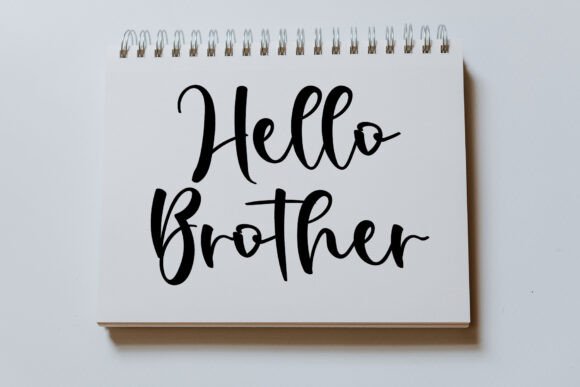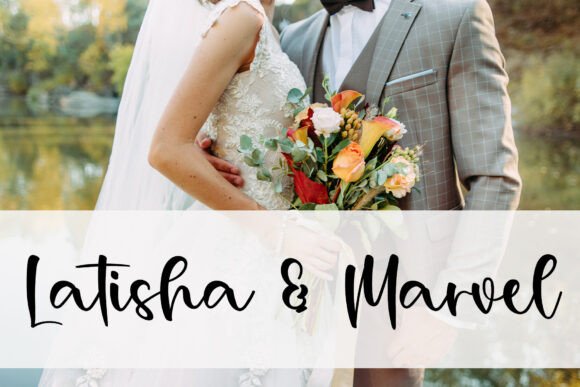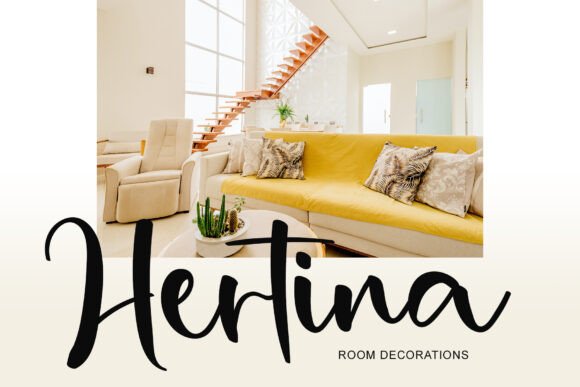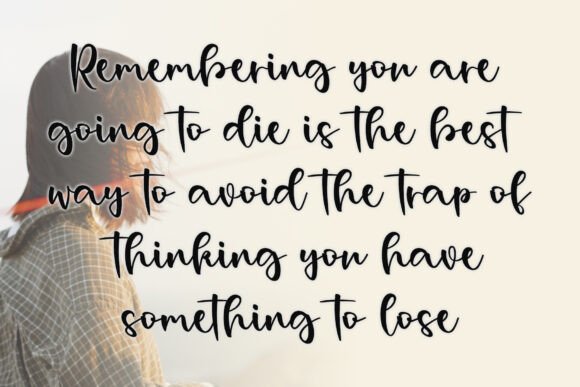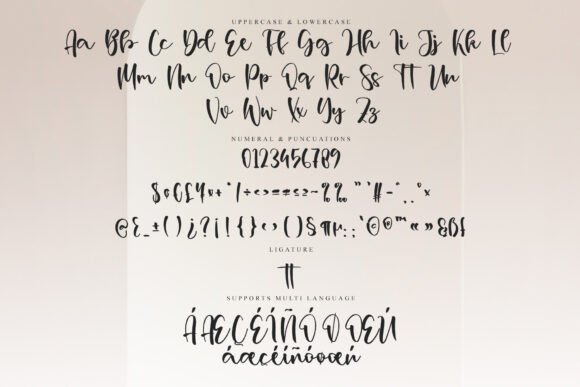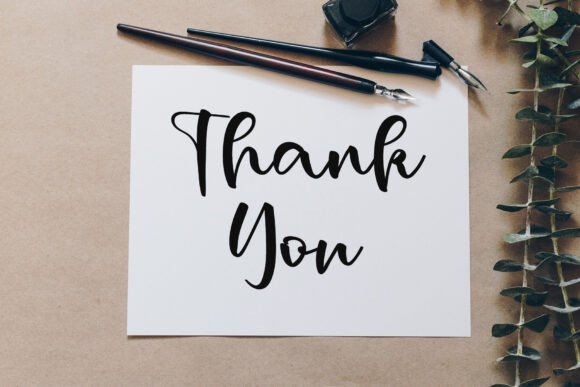
Introduction to Lovely Script Font
Do you remember the thrill of designing a beautiful invitation for your best friend’s wedding, or the satisfaction of creating a stunning logo for your own business? For many of us, the joy of design lies in the small, special moments where we get to make something truly unique and personal. And that’s exactly where the Lovely Script Font comes in – a stylish handwritten font that adds a touch of elegance and sophistication to any creative project.
As a valuable design resource, the Lovely Script Font offers a high-quality, transparent background that allows your text to shine. With its impeccable form and contemporary atmosphere, this font is perfect for designers who want to add a touch of classic charm to their work. And the best part? It’s available for free download, making it an accessible and versatile tool for any creative project.
Whether you’re a seasoned pro or just starting out, the Lovely Script Font is sure to become a trusted companion in your design journey. So why settle for ordinary when you can add a little extra loveliness to your work?
Key Features of Lovely Script Font
- High-quality design resource with a beautiful, handwritten feel, perfect for creative projects.
- Designed to be highly legible, with a unique and elegant script style that adds a touch of sophistication to any design.
- Perfect for use in a variety of creative projects, including invitations, posters, logos, and more.
Honest Review: Lovely Script Font
As a designer, I’ve come across my fair share of fonts, but the Lovely Script Font has truly caught my eye. With its high-quality design, it’s a valuable resource for any creative project.
- ✨ The font’s script style is both elegant and readable, making it perfect for any project that requires a touch of sophistication.
While the Lovely Script Font is a great resource, there are some limitations:
- ⚠️ The font is not suitable for use in bold or large font sizes, as it can become difficult to read.
- ⚠️ The font is a script font, so it may not be the best choice for projects that require a clear, sans-serif font.
Overall, I’m impressed with the Lovely Script Font. It’s a high-quality design resource that’s perfect for designers who want to add a touch of elegance to their creative projects.
Tips for Getting the Most Out of Lovely Script Font
Experiment with different font sizes and styles to create a unique look. Use the font in combination with other design elements, such as graphics and images, to add depth and interest to your design.
Common Use Cases for Lovely Script Font
The Lovely Script Font is perfect for a variety of creative projects, including wedding invitations, birthday cards, and social media graphics. Its elegant and sophisticated design makes it a great choice for any project where you want to add a touch of class and style.
Alternatives to Lovely Script Font
1. Carolyna Pro
Carolyna Pro is a high-quality, elegant script font perfect for creative projects that require a touch of sophistication. It’s ideal for designing business cards, wedding invitations, and other high-end materials. When to use: For projects that demand a refined, luxurious feel.
Compared to Lovely Script Font, Carolyna Pro offers a more refined and polished appearance, making it suitable for professional and corporate designs. It also features a wider range of ligatures and swashes, adding to its versatility.
Pacifico is a beautiful, modern script font that works well for a variety of design projects, from logos and branding to web design and digital media. It’s a great choice for designers who want a clean, elegant look with a touch of personality. When to use: For projects that require a modern, laid-back feel.